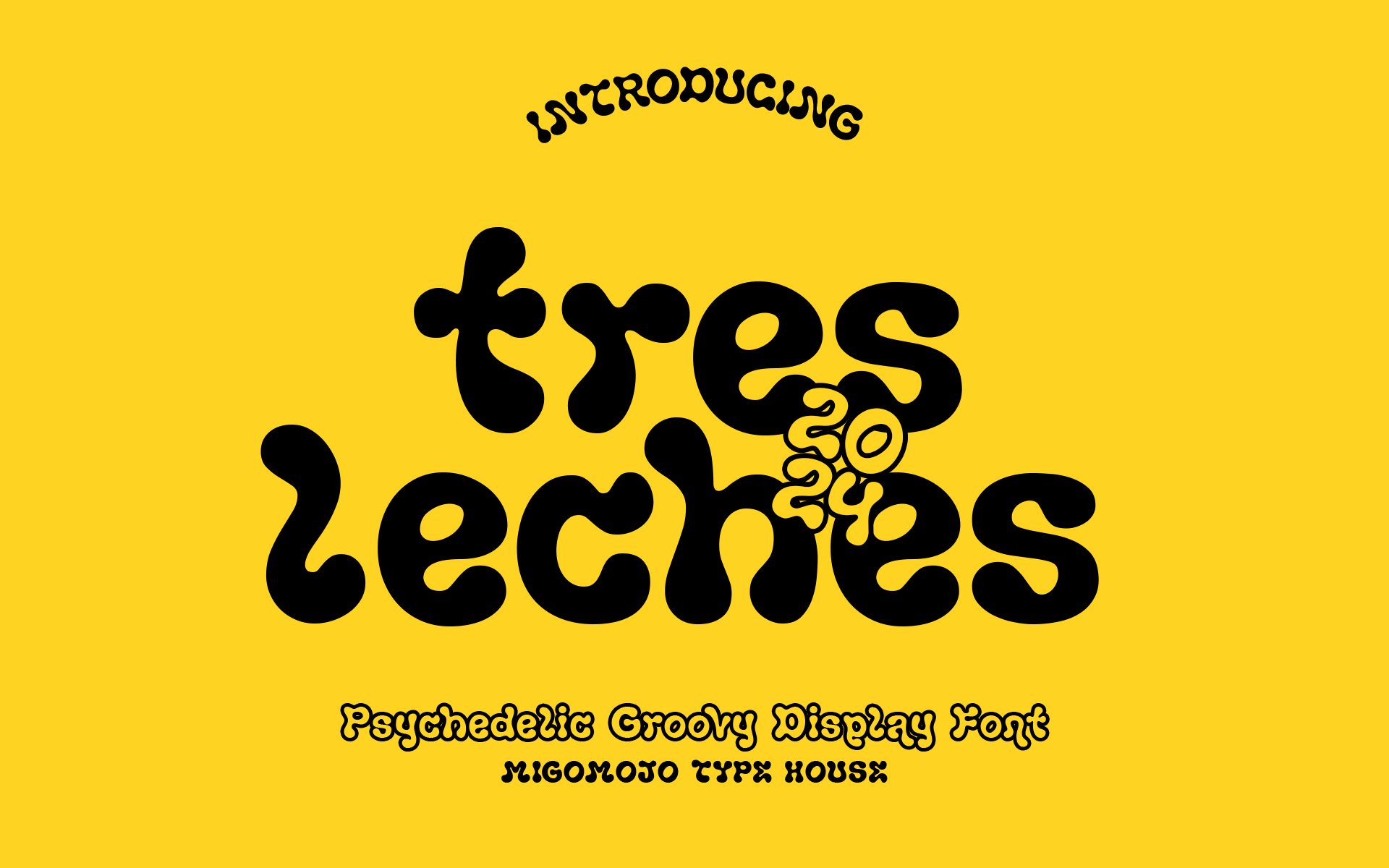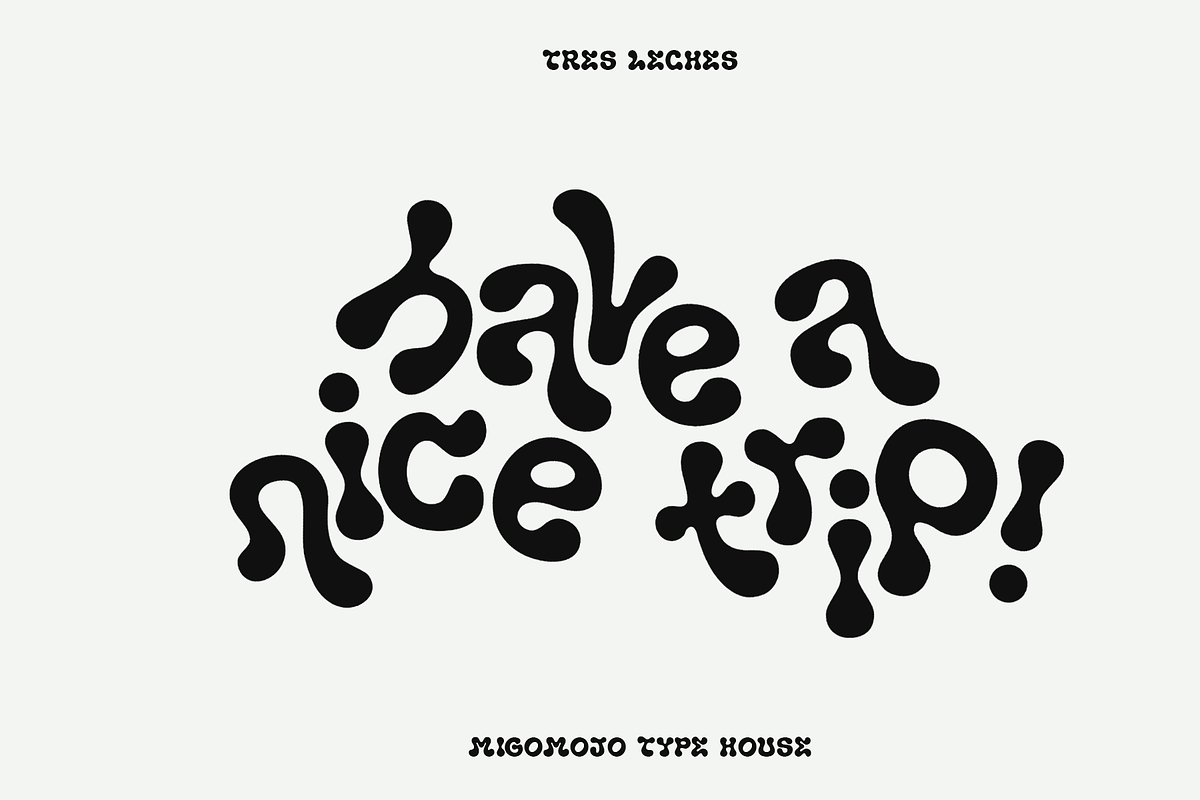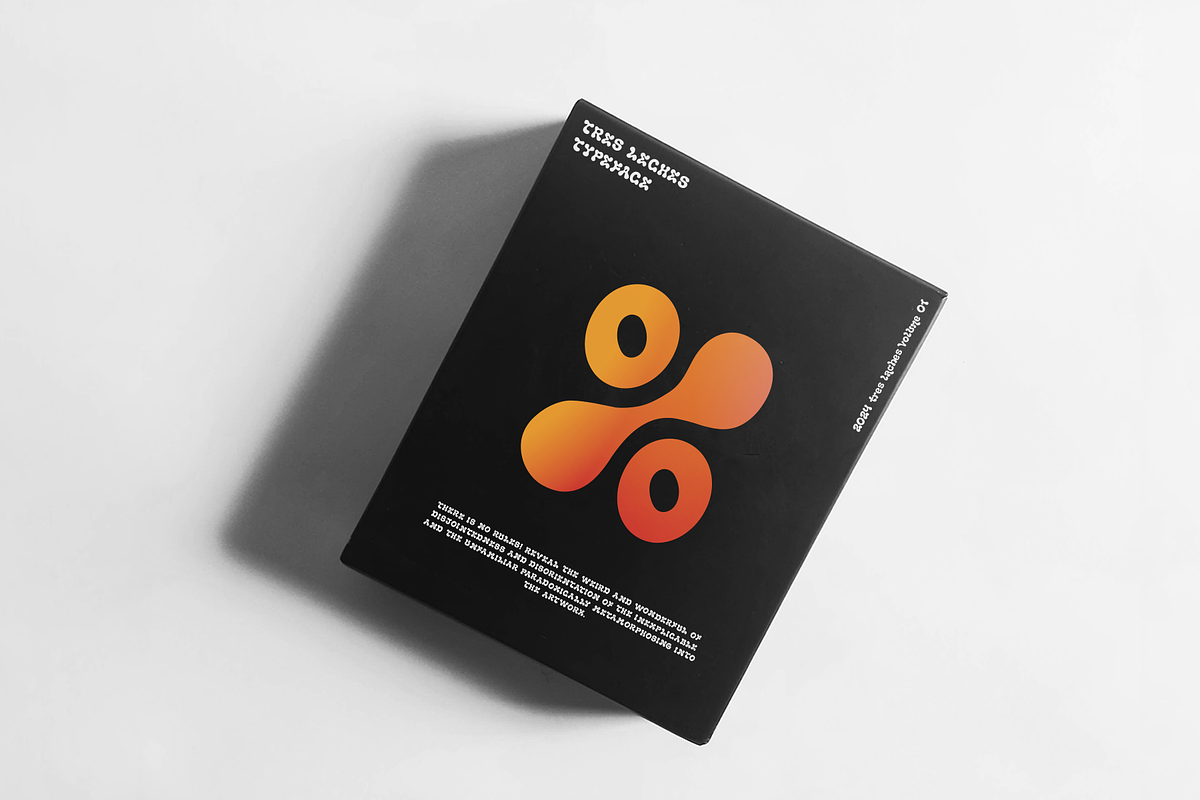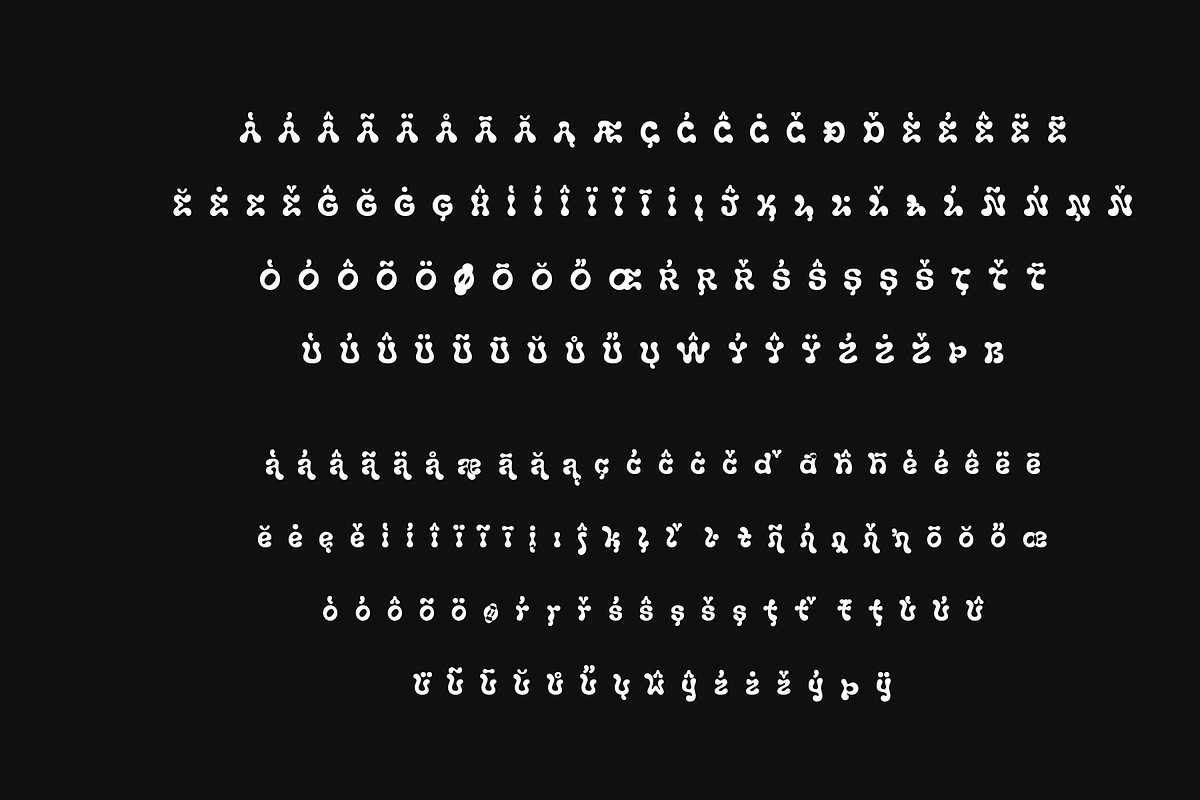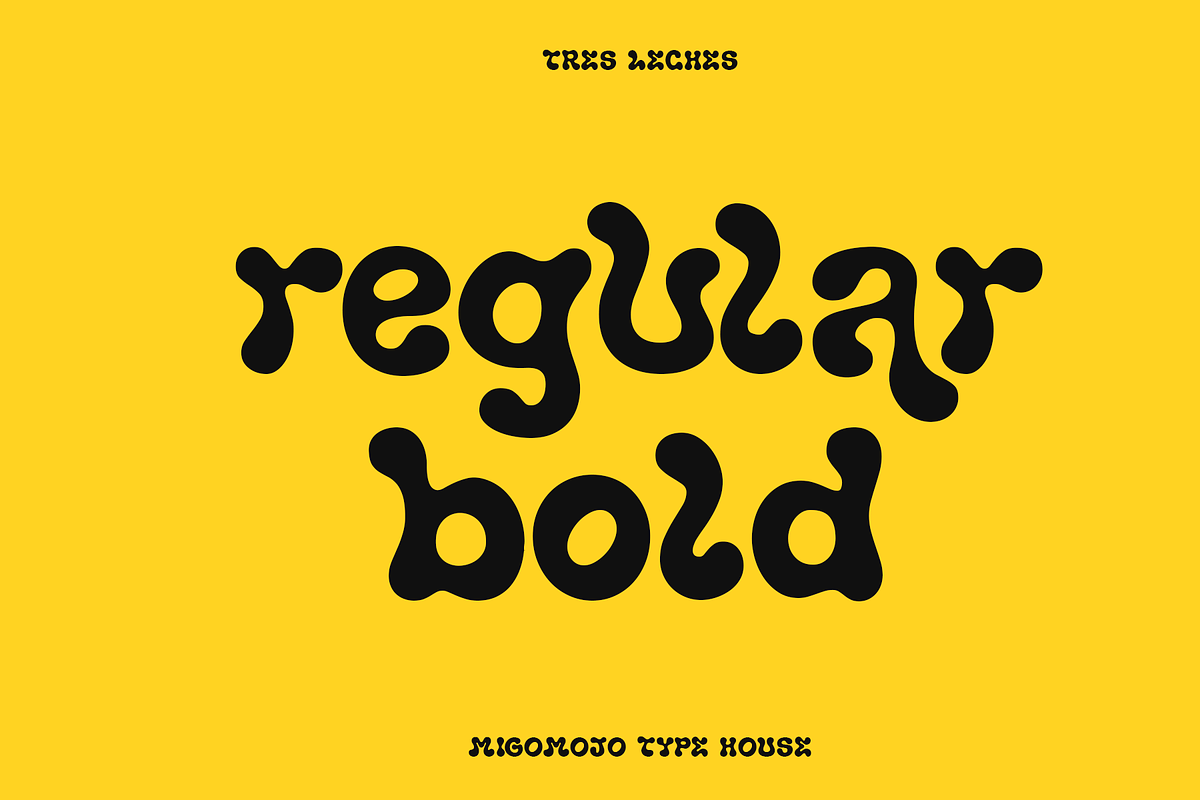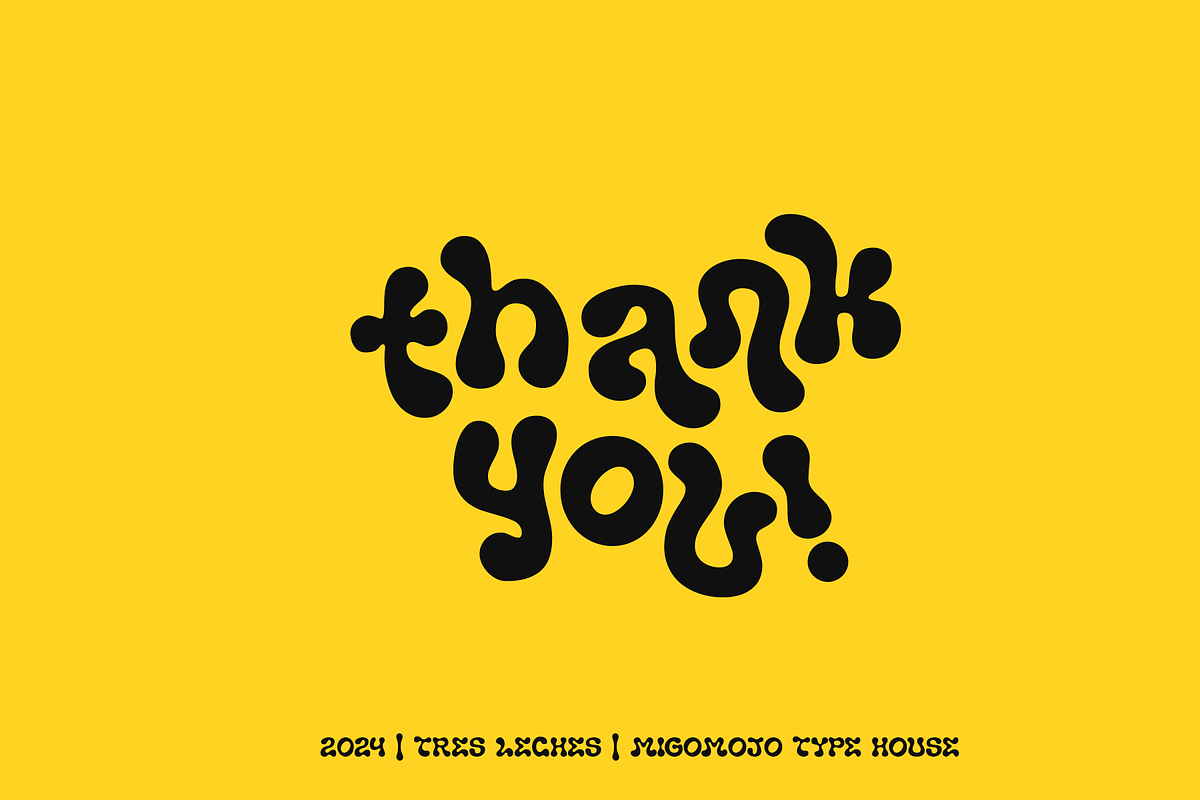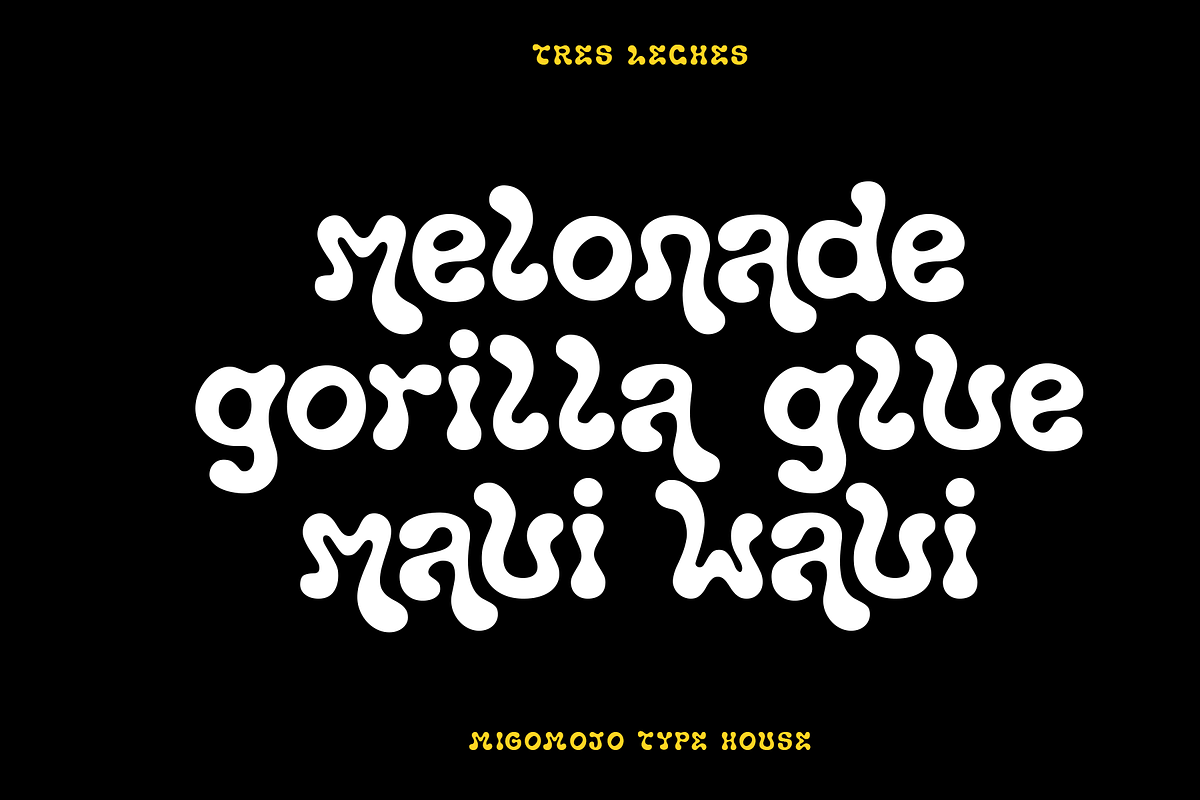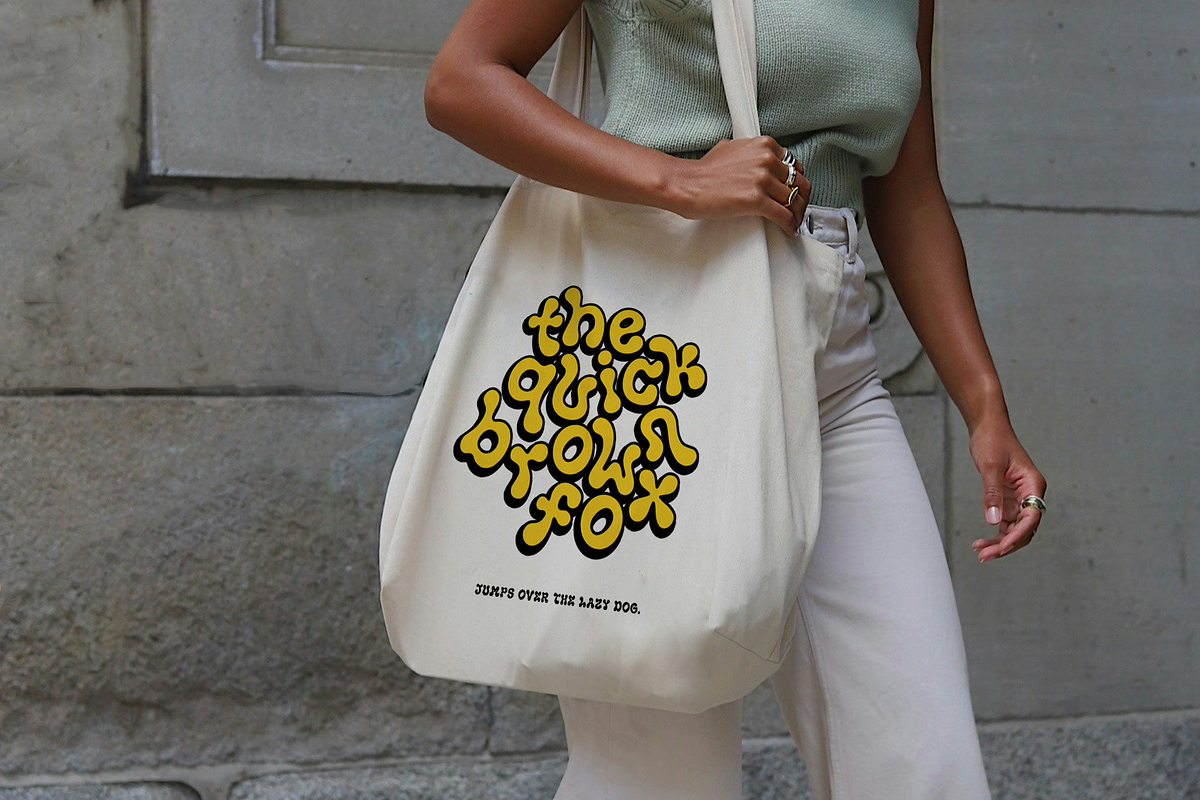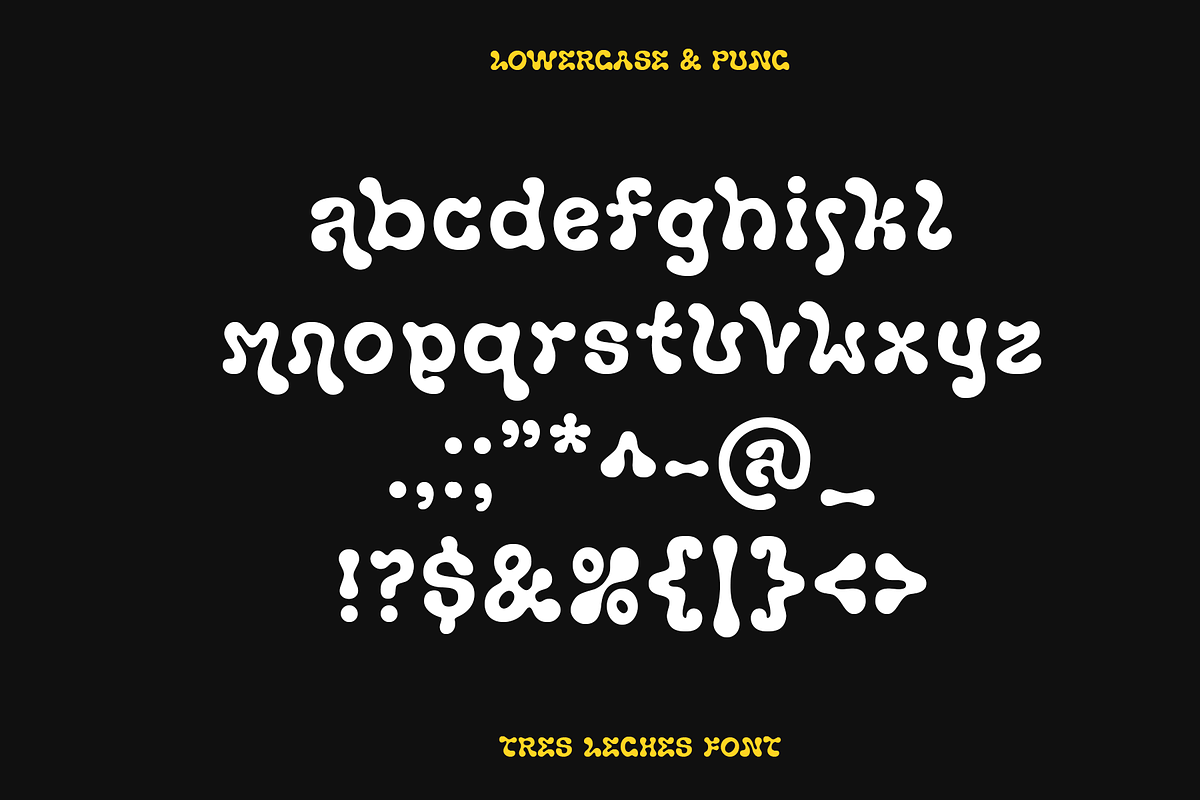
Tres Leches Typeface
Tres Leches, a playful and groovy display font inspired by the psychedelic era. Its bold, rounded letters and organic shapes create a fun and energetic feel, perfect for adding a touch of retrwave to your designs. Have a nice trip, Cheers!